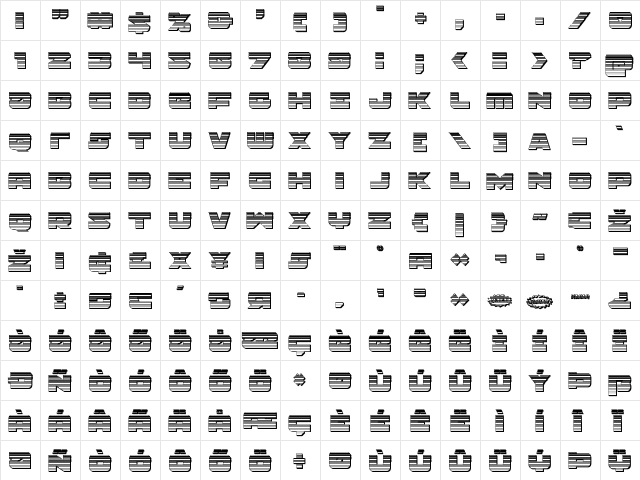
Banjin Scanlines Chrome Regular
Design Context for Banjin Scanlines Chrome Typeface
Banjin Scanlines Chrome is a composed and adaptable typeface that performs quietly and consistently across a wide range of design contexts.